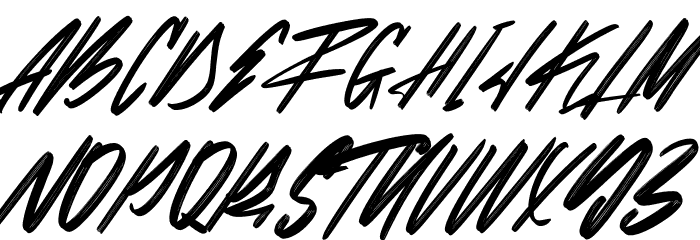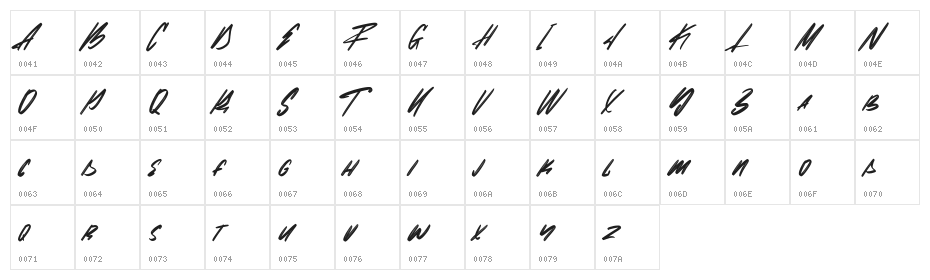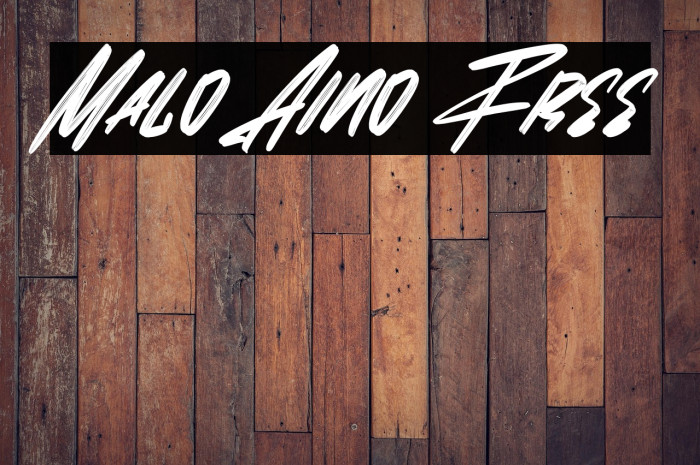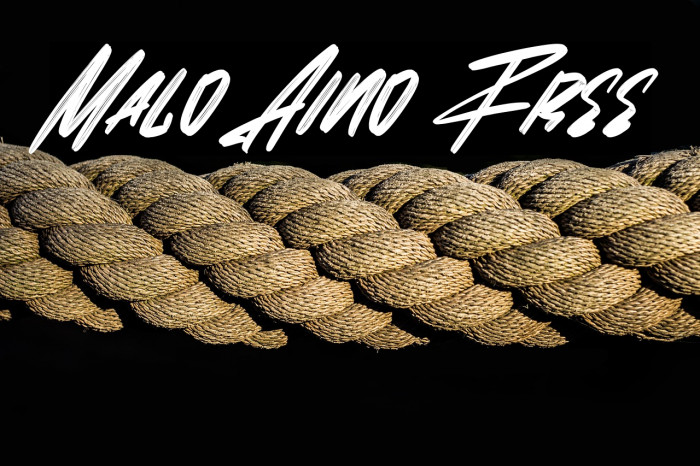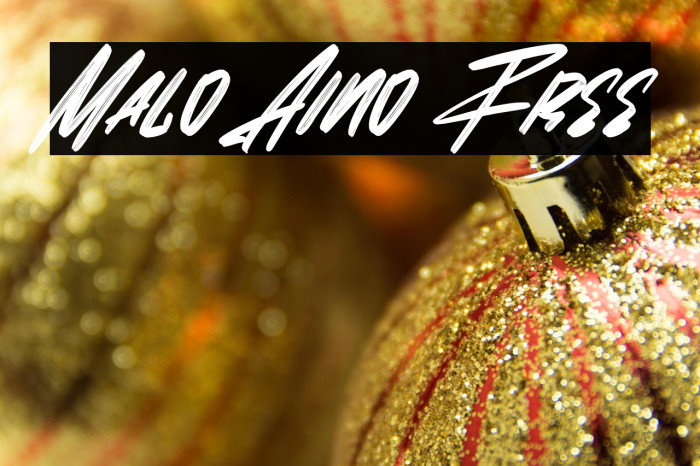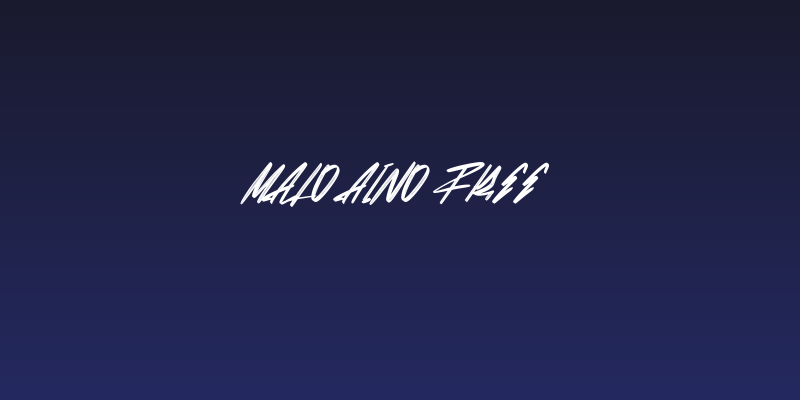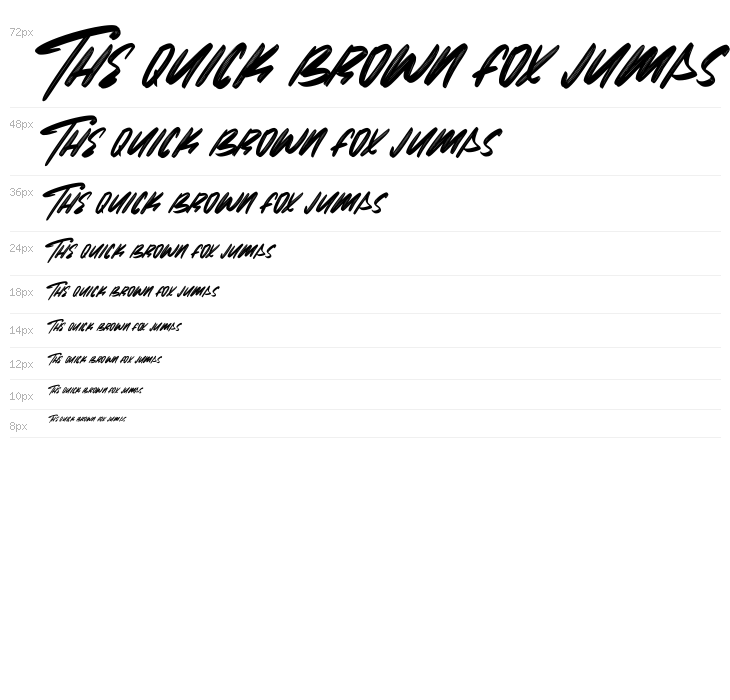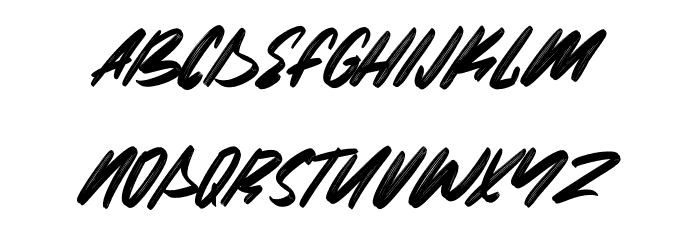
Malo Aino Free Font
Malo Aino Free Description
This font exudes a bold and dynamic energy with its brush script style, characterized by thick, sweeping strokes and a sense of motion. The letters are closely spaced, creating a compact and cohesive appearance. The uppercase and lowercase letters maintain a consistent style, with a slightly slanted orientation that adds to the font's lively and informal feel. The numbers and special characters are equally expressive, maintaining the same boldness and fluidity. This font is ideal for projects that require a strong, artistic touch, such as branding, posters, or any design that aims to capture attention with its vibrant and energetic style.
| Proposed Projects | Branding, posters, artistic designs, and any project needing a vibrant, attention-grabbing font. |